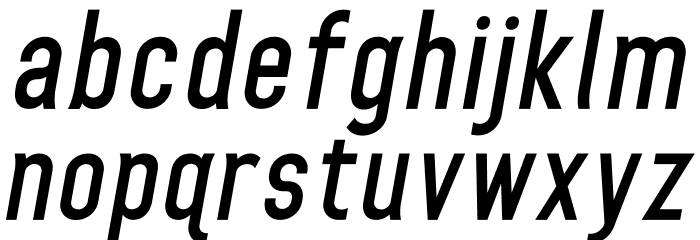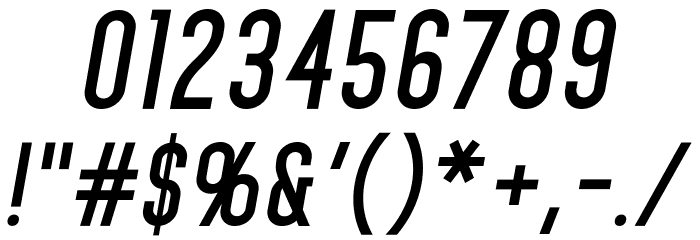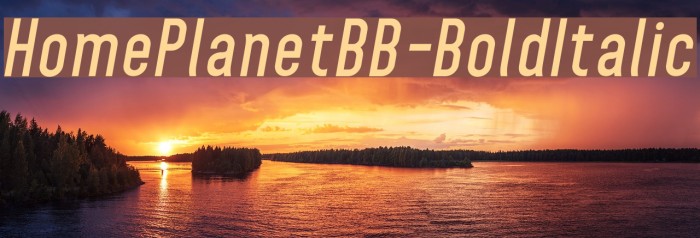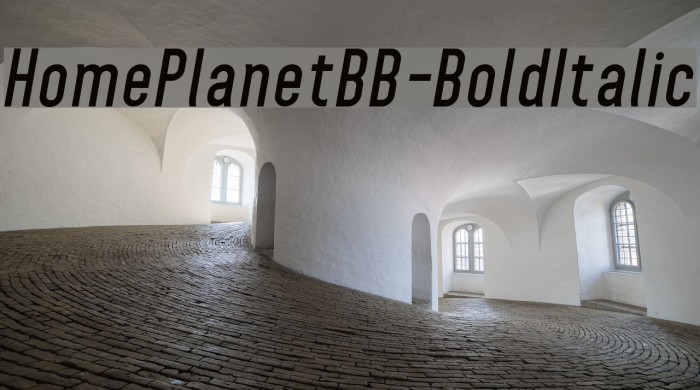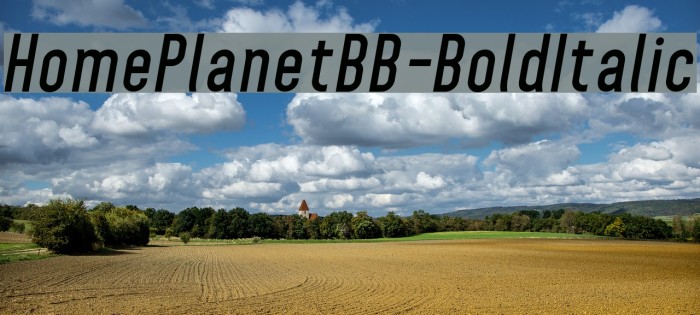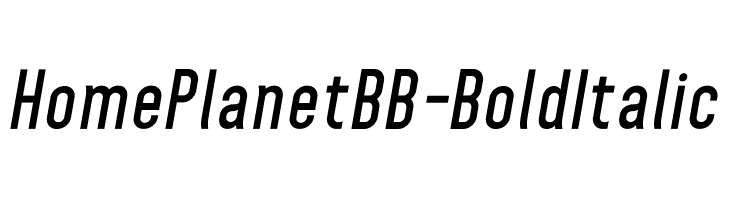
HomePlanetBB-BoldItalic Font
This font features a bold and italicized style, characterized by its strong, slanted letterforms that convey a sense of dynamism and modernity. The uppercase and lowercase letters maintain a consistent slant, enhancing readability while adding a touch of elegance. The numbers and special characters are designed to match the overall aesthetic, providing a cohesive look across all elements. The font's structure is clean and streamlined, making it suitable for various design applications where a bold statement is needed.
A bold, italicized font with a modern and dynamic appearance.
- Proposed Projects: Ideal for branding, advertising, and editorial design where a strong and modern impression is desired.